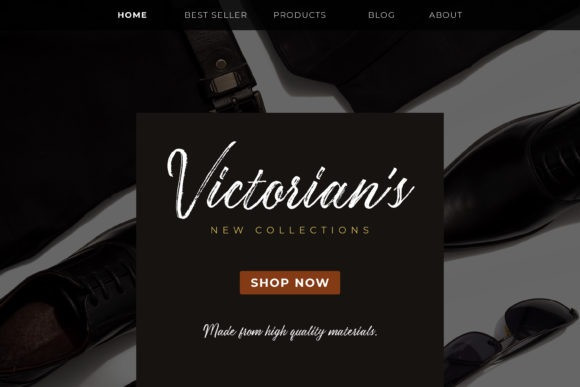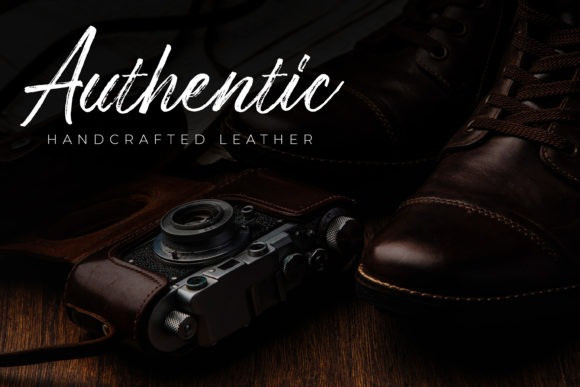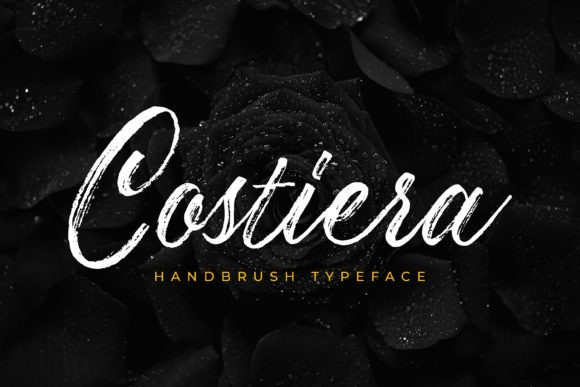
Hayhills Brush Font
Hayhills is a bold script font with a unique style. This font is great for your next creative project such as Logotype, printed quotes, invitations, cards, product packaging, headers, Letterhead, Poster, Apparel Design, Label, and etc.